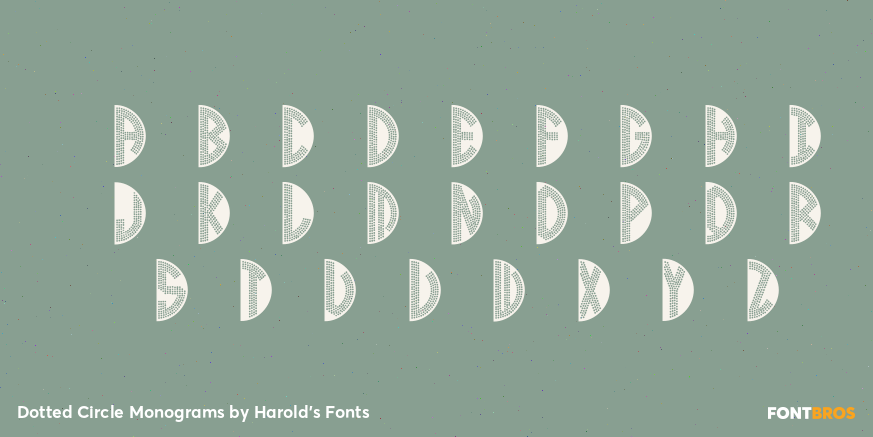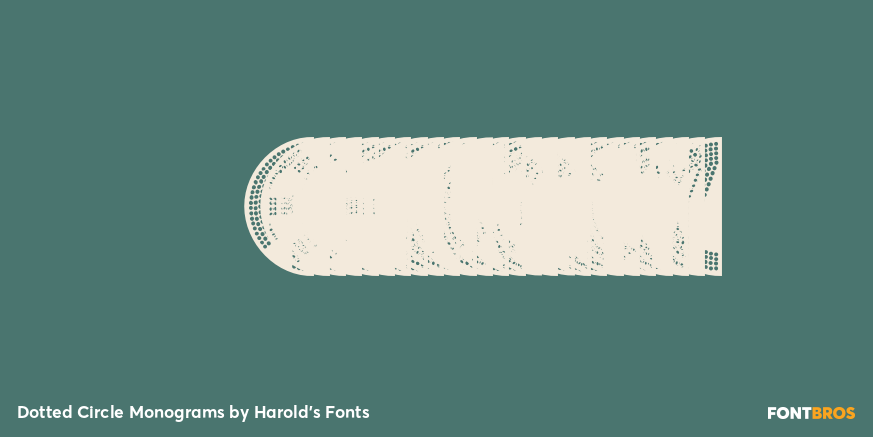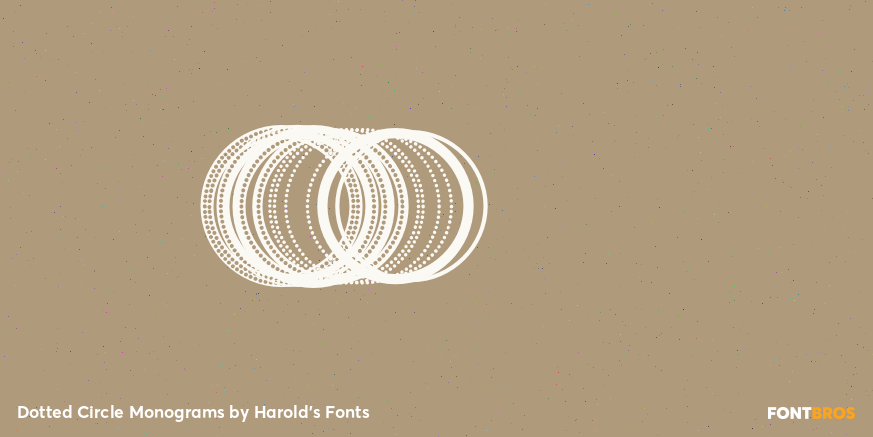
Dotted Circle Monograms
Font Family by Harold's Fonts
Here is a new entry in my popular Circle Monograms® collection. This set of 2 fonts lets you create dazzling custom 2-letter monograms with a choice of frames. In the Black font, the letters seem to be formed by little lights; in the White font, you might imagine them to be beads.
How to Create Dotted Circle Monograms
Dotted Circle Monograms Black
Dotted Circle Monograms White